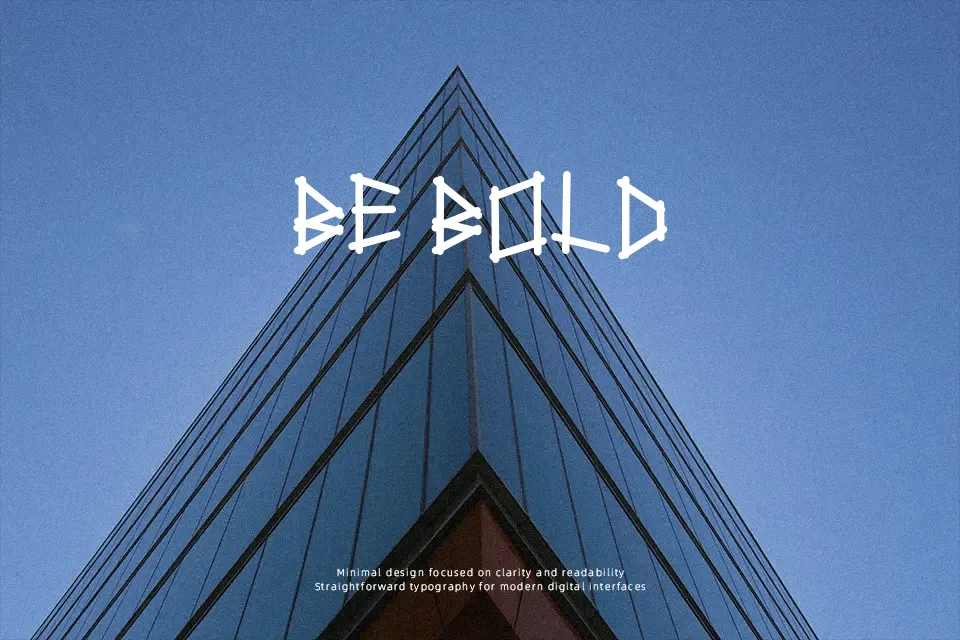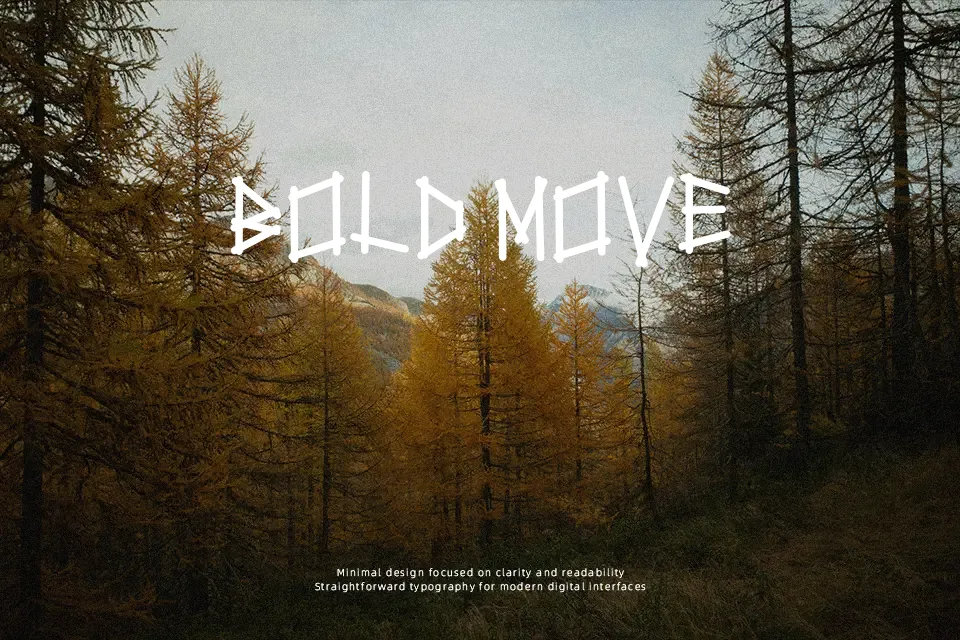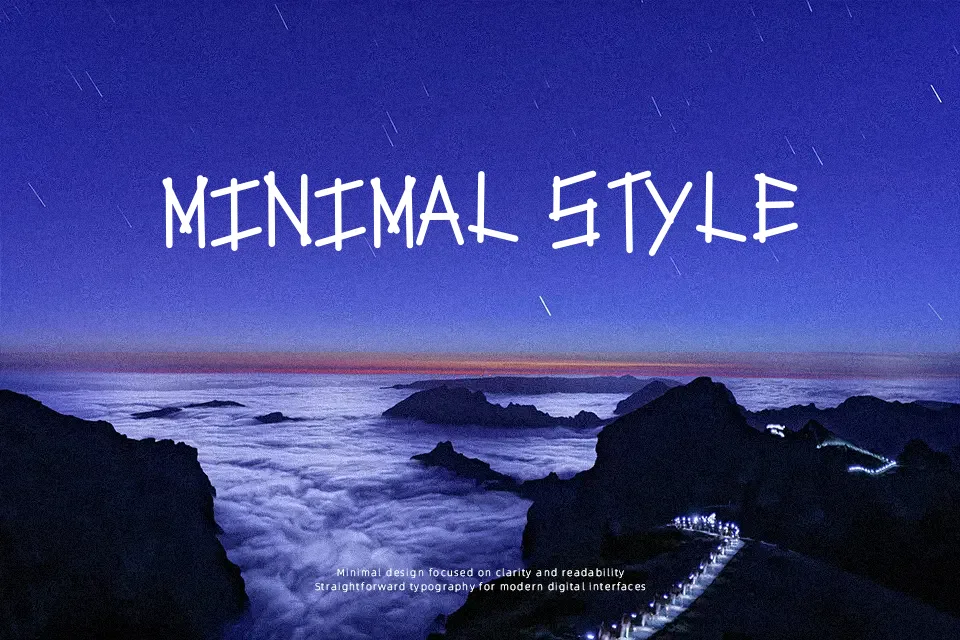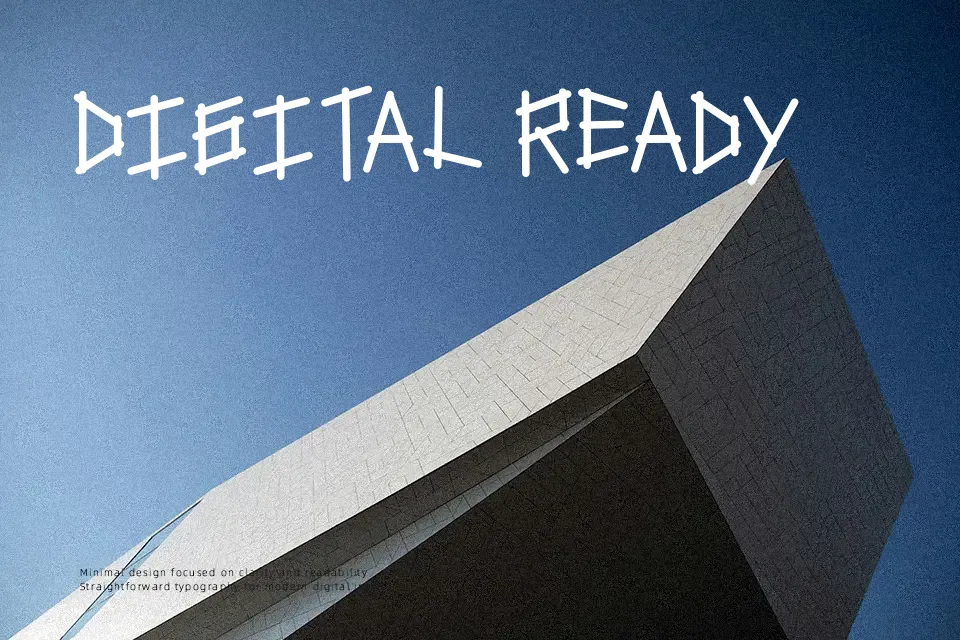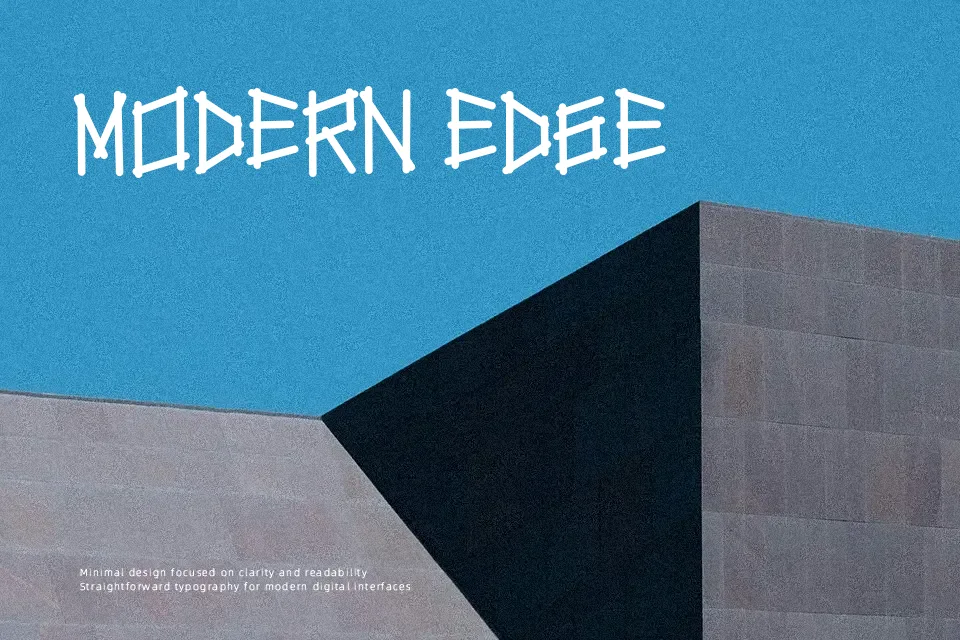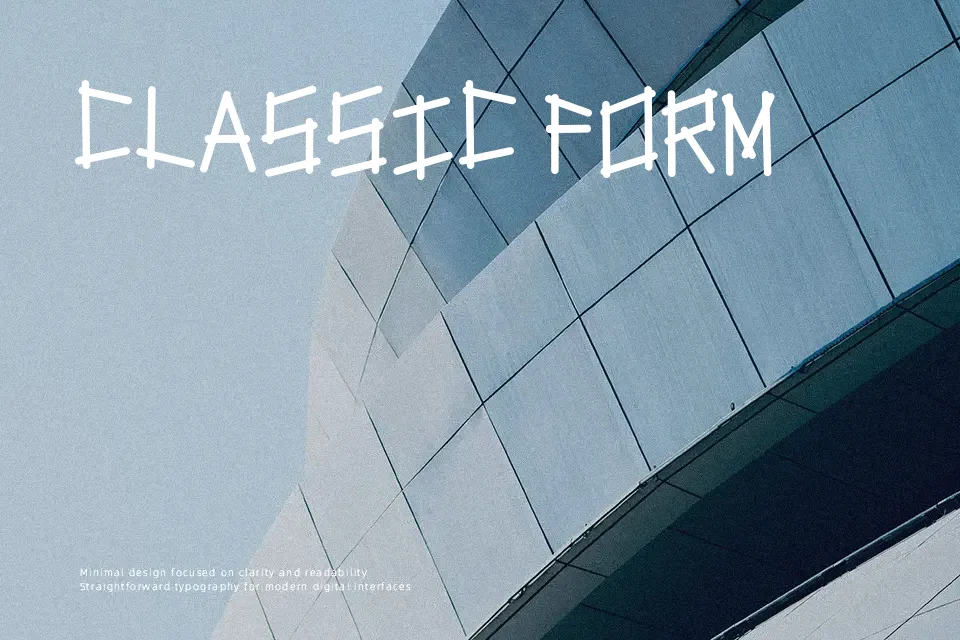
Tapetype Font
Built with modular segments resembling intersecting strips of masking tape, Tapetype Font presents a raw, geometric structure defined by uniform stroke thickness and unrefined terminals. The uppercase letterforms maintain balanced proportions with deliberate mechanical rigidity, while character spacing remains moderately open to preserve definition between neighboring strokes. Because the glyphs prioritize textural novelty over fluid reading cadence, legibility flourishes in punchy poster headlines, urban apparel graphics, and packaging callouts. However, the abrasive modular construction becomes fatiguing across lengthy blocks of editorial text. For designers seeking an authentic DIY aesthetic, the typeface offers immediate visual grit that commands attention at large display scales.
Best For: underground music posters, industrial product packaging, zine cover titles, streetwear graphics
Not Ideal For: continuous editorial text, corporate documentation, small mobile UI labels, spreadsheet data
Perfect for branding, headline, and music, with a bold and decorative style.